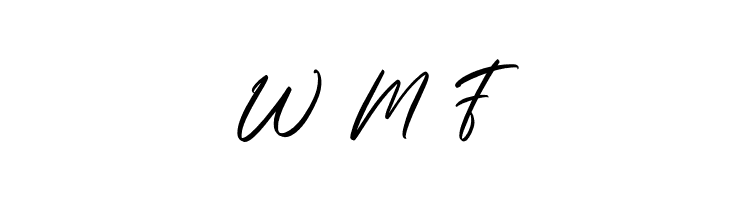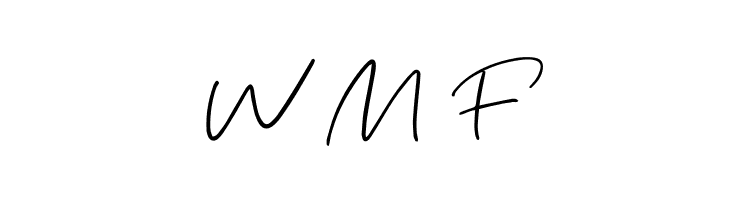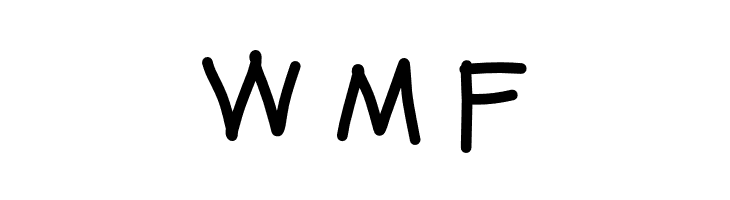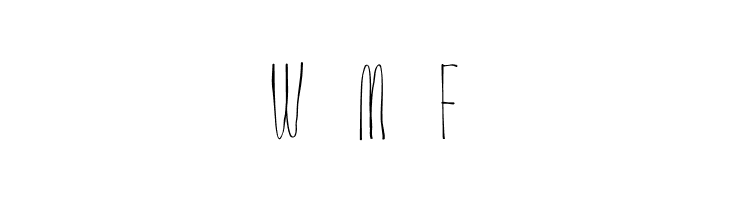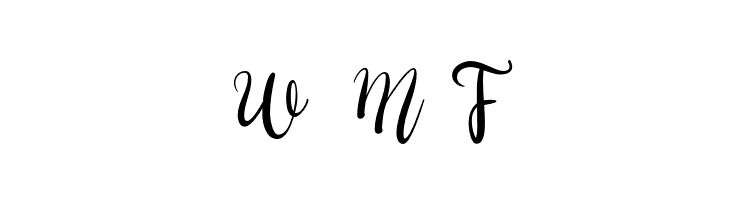
Playful handwritten font with a casual style.
Distressed, energetic handwritten script with brush-like texture.
A modern, handwritten script font with a flowing, artistic style.
A playful, handwritten font with rounded, informal letterforms.
Handwritten cursive script with smooth, connected strokes.
A fluid and elegant script font with a handwritten calligraphic style.
Casual, modern handwritten script with playful loops.
A dynamic and expressive handwritten font with fluid strokes and a casual elegance.
Elegant cursive script with a handwritten feel.
Handwritten cursive script font.
A playful, flowing script font with smooth, connected letters.
An elegant, cursive font with a signature-like style and high contrast strokes.
Elegant script font with decorative flourishes.
A playful and energetic script font with bold, flowing strokes and dynamic curves.
Elegant handwritten script font.
A playful and energetic script font with a handwritten feel.
A bold, brush-style font with a handwritten, dynamic appearance.
A lively, cursive font with fluid, expressive strokes.
A playful, handwritten font with smooth curves and a casual style.
Elegant, handwritten script with connected, flowing strokes.
Elegant, handwritten cursive script with connected strokes.
A playful, casual handwritten font with uneven strokes and a lively appearance.
A playful, casual handwritten font with rounded, consistent strokes.